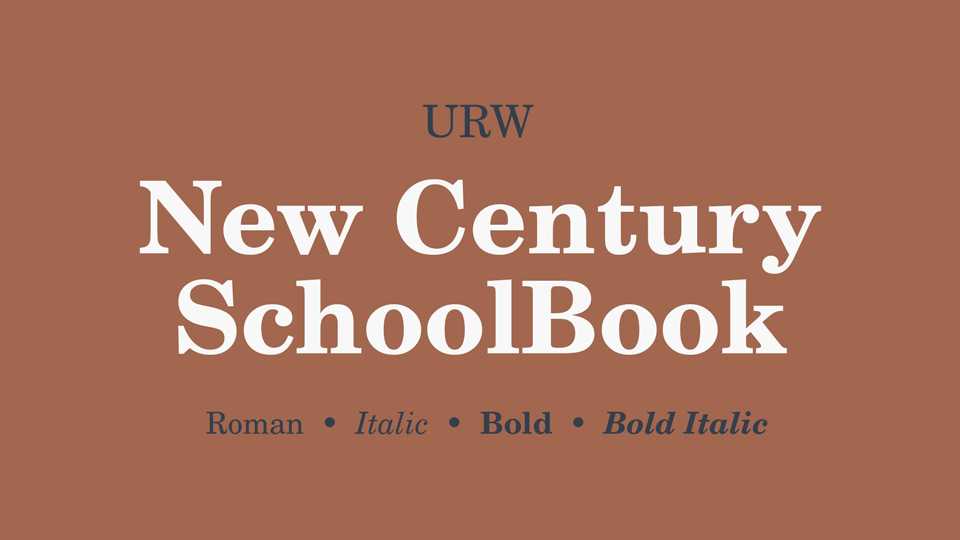
Download URW New Century Schoolbook (C059) typeface, a transitional serif font family in two weights and Italics based on the Century Schoolbook designed by Morris Fuller Benton in 1919 for the American Type Founders.
Designer: URW Type Foundry